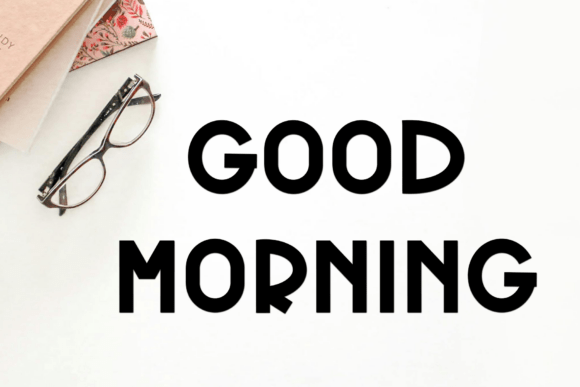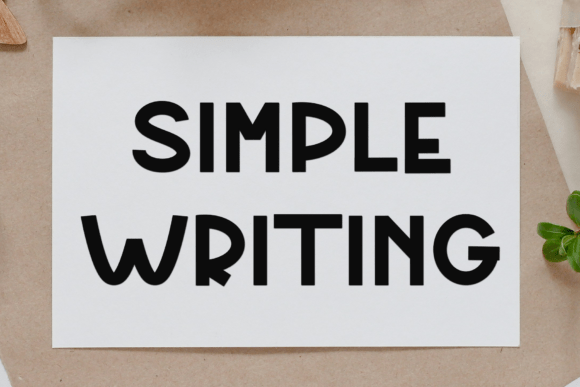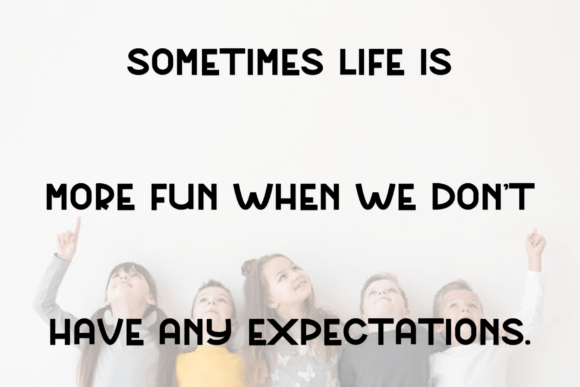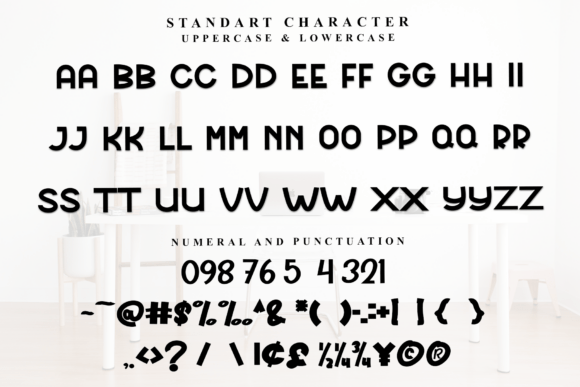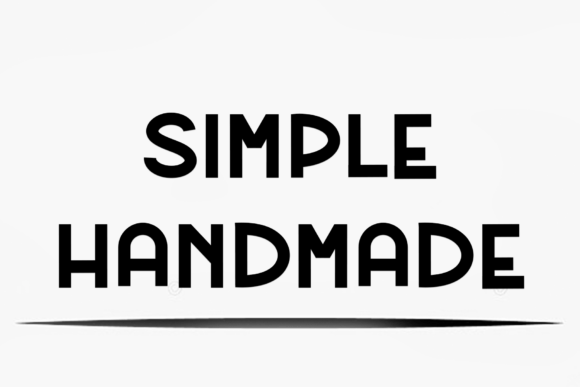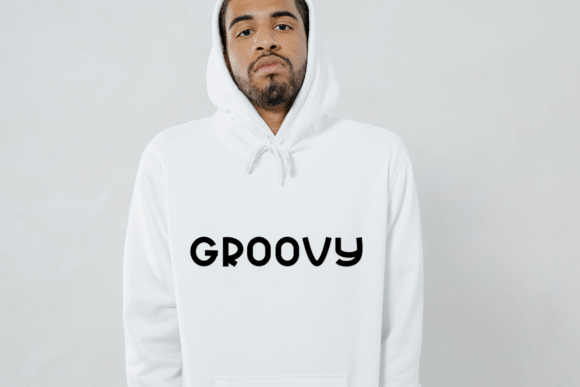
Introducing Cooling Down Font: A Unique and Versatile Typeface
In the world of typography, fonts play a crucial role in conveying messages, expressing emotions, and adding aesthetic value to designs. Among the numerous fonts available, Cooling Down Font stands out for its soft, unique touch and distinctive strokes. This beautiful font is designed to add a special character to your creative projects, making it a valuable asset for designers, crafters, and artists.
The Distinctive Features of Cooling Down Font
Cooling Down Font boasts a range of unique features that set it apart from other typefaces. Its soft and delicate strokes give it a natural, effortless look that can add a touch of elegance to any design. The font’s distinctive character set includes various characters that can be used to create visually appealing text designs. Whether you’re working on a logo, brochure, or social media graphics, Cooling Down Font is the perfect choice.
Cooling Down Font is an ideal choice for designers and crafters working on various projects. Its unique character makes it perfect for:
• Logos and branding materials: Add a touch of elegance to your brand’s identity with this beautiful font.
• Social media graphics: Create visually appealing social media posts that grab attention.
• Brochures and flyers: Use Cooling Down Font to add a professional touch to your marketing materials.
• Crafts and DIY projects: Add a personal touch to your handmade crafts, such as cards, invitations, and gift tags.
Enhance Your Designs with Cooling Down Font
Cooling Down Font is designed to enhance your designs and make them appealing to a wide range of audiences. Its natural and effortless look can add a touch of sophistication to any design, making it perfect for:
• Artistic projects: Use Cooling Down Font to add a creative touch to your art pieces.
• Creative writing: Add a personal touch to your stories, poems, and other written works.
• Graphic design: Use Cooling Down Font to create visually appealing graphics, such as posters, banners, and more.
Why Choose Cooling Down Font?
With so many fonts available, why choose Cooling Down Font? Here are a few reasons:
• Unique character: Cooling Down Font has a distinctive character that sets it apart from other fonts.
• Elegant look: Cooling Down Font adds a touch of elegance to any design, making it perfect for professional and personal projects.
Cooling Down Font is a beautiful and eye-catching typeface that can add a special character to your designs. Its unique strokes, versatility, and compatibility make it a valuable asset for designers, crafters, and artists. Whether you’re working on a professional project or a personal craft, Cooling Down Font is the perfect choice. Download it today and enhance your designs with its elegant and natural look.